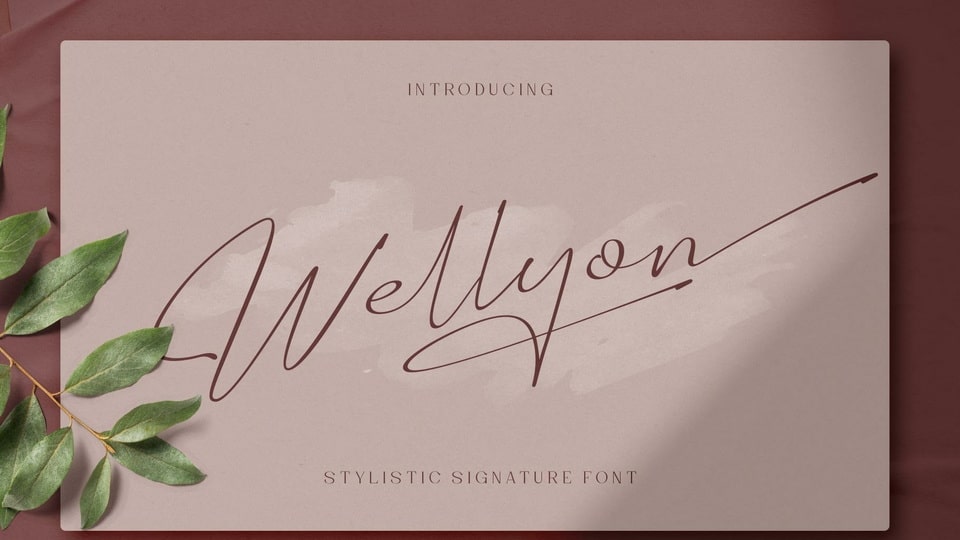
Download Wellyon font, a dazzling signature typeface inspired by spontaneous and dynamic strokes with an ink texture to look real. Wellyon font looks unique and charming which makes any designs look more prominent and cool.